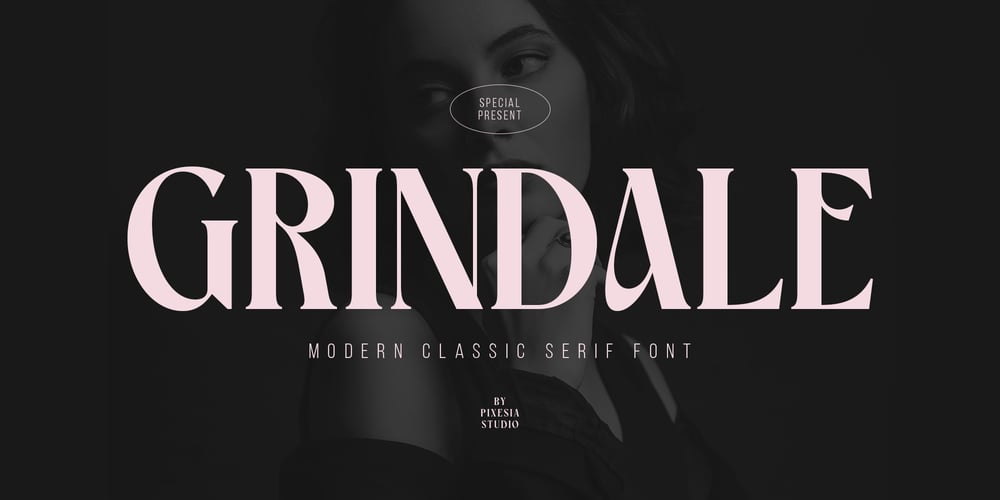
Grindale Font Family was designed by Abul Almaududi and published by Pixesia Studio. Grindale contains 1 styles and family package options. Introducing Grindale – Modern Classic Serif FontGrindale is a modern take on the classic serif font that combines timeless elegance with a contemporary edge. This font is perfect for creating elegant headlines, logos, and other design elements that demand attention. With its clean lines and classic serifs, Grindale is a versatile font that will add a touch of sophistication to any project. Its modern design makes it a great choice for a wide range of projects, from branding and advertising to editorial design and more. FEATURES- Stylistic Alternates- Ligatures- PUA Encoded- Uppercase and Lowercase letters- Numbering and Punctuations- Multilingual Support- Works on PC or Mac- Simple Installation- Support Adobe Illustrator, Adobe Photoshop, Adobe InDesign, also works on Microsoft WordHope you Like it.Thanks.